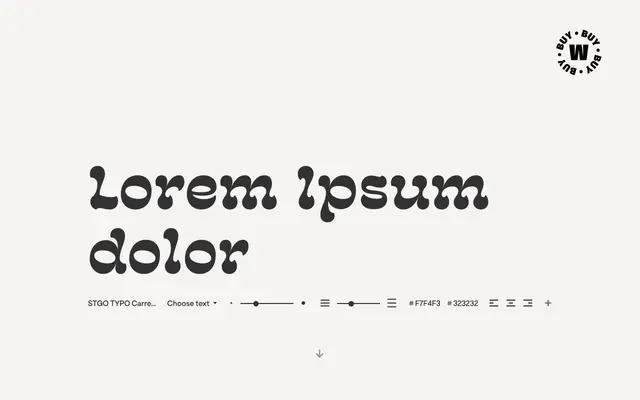
STGO TYPO
A ten-style family drawn from found lettering across Santiago's streets, gathered during 2023 field research by WTF Studio.
Each of the ten styles — from Marmol and Block through to Carreton and Tag — is derived from lettering observed across different districts of Santiago, preserving the visual diversity of the city's graphic vernacular. The project was developed with support from Chile's Fondo Nacional de las Artes y la Culturas, positioning it as documentary as much as typographic. Available for non-commercial use under a personal licence.
A collection of typefaces sourced from found lettering in Santiago's streets, spanning multiple styles from block to script-adjacent forms; firmly display in character and purpose.